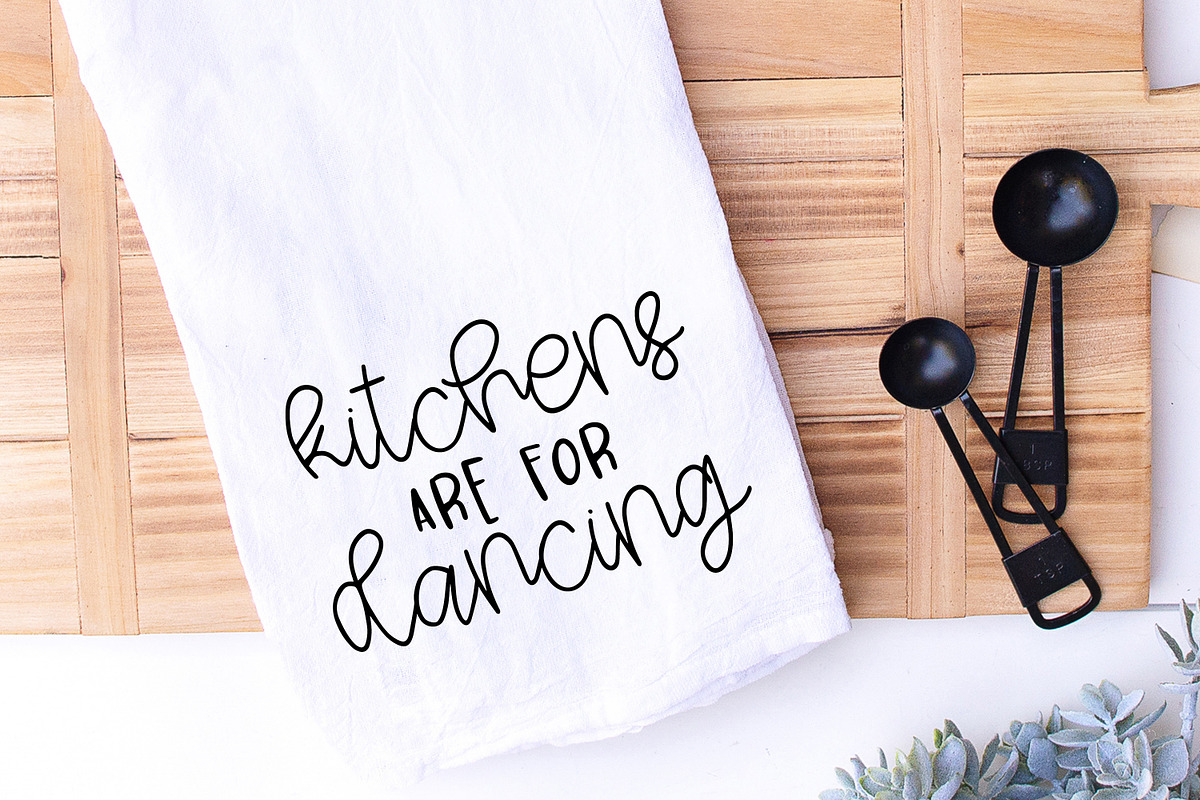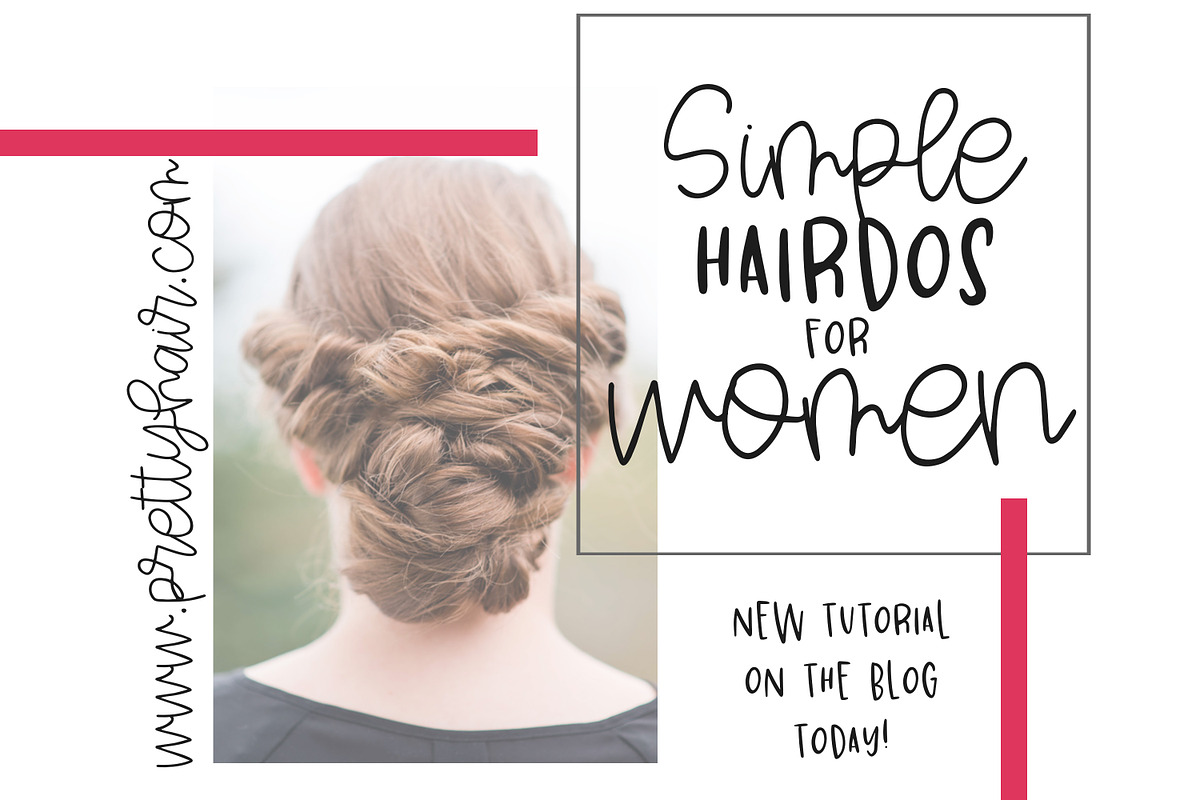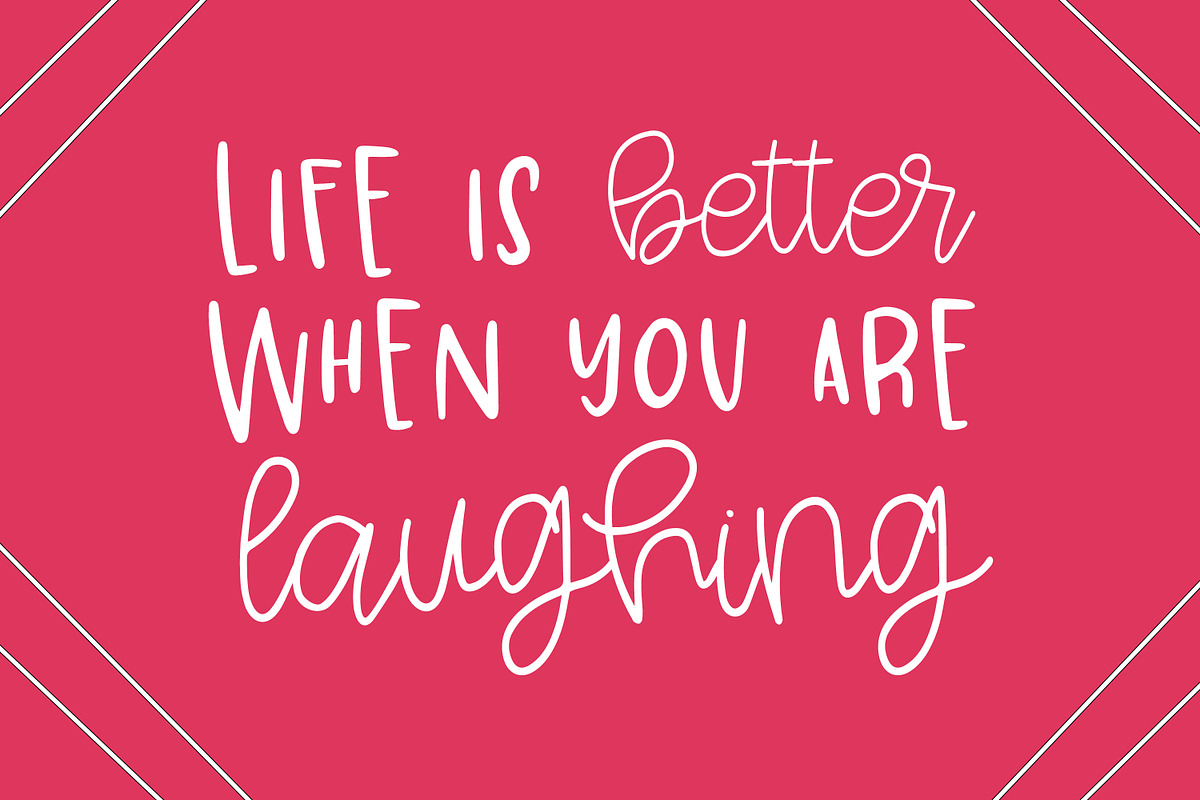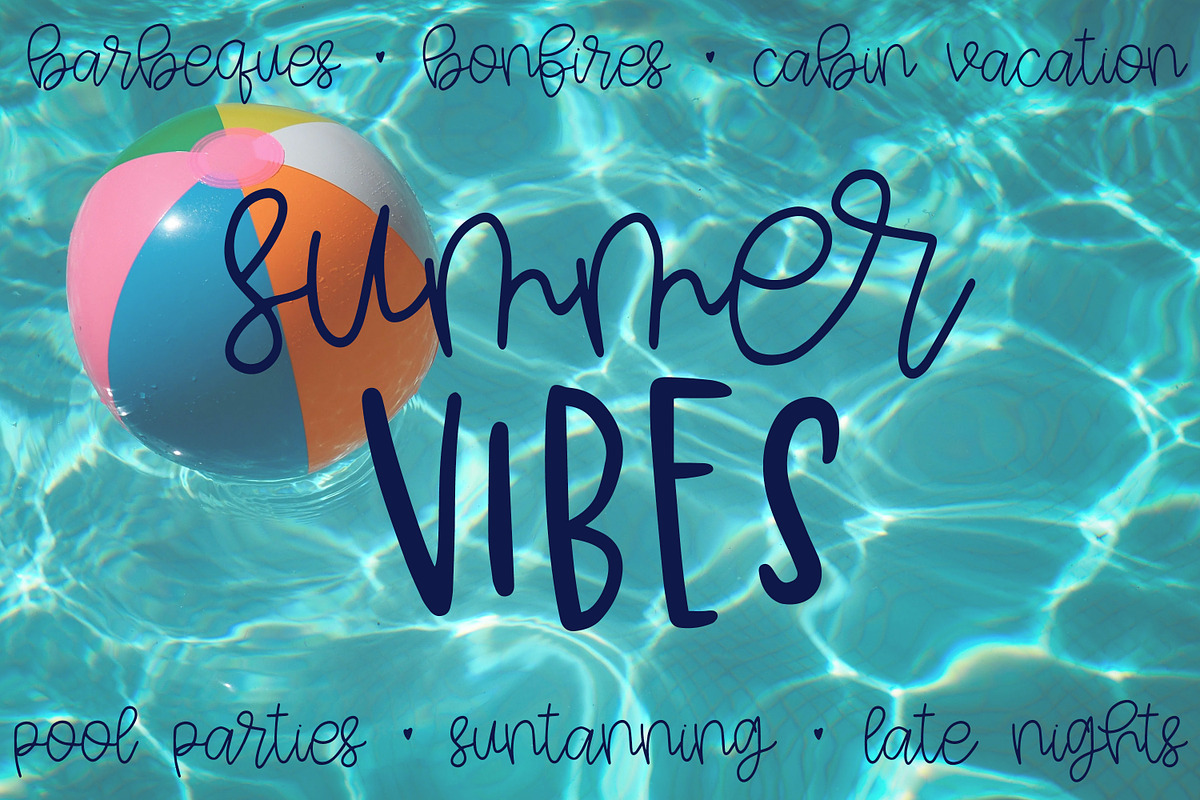
Watermelon Squeeze
Watermelon Squeeze is a cute font duo that includes a script font and an all caps bouncy print font! Pair this font duo together for a darling combination for logos, invitations, announcements, business cards and more!